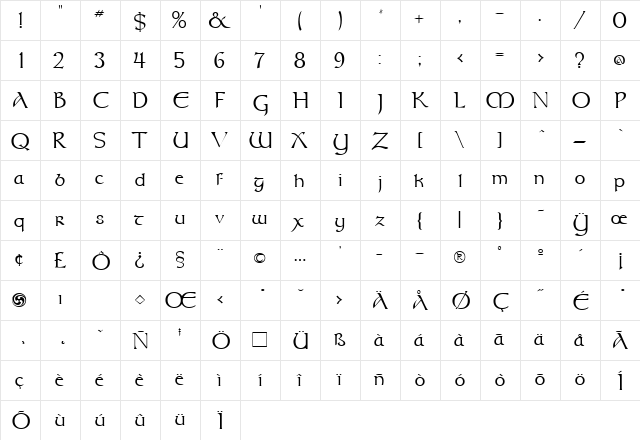
MeathFLF.fog_ fog_ Font Preview
MeathFLF.fog_ fog_
MeathFLF.fog_ fog_ Font Details
| Style | fog_ |
| Year | 1988 |
Design Context for MeathFLF.fog_ Typeface
MeathFLF.fog_ is a composed and adaptable typeface that performs quietly and consistently across a wide range of design contexts.